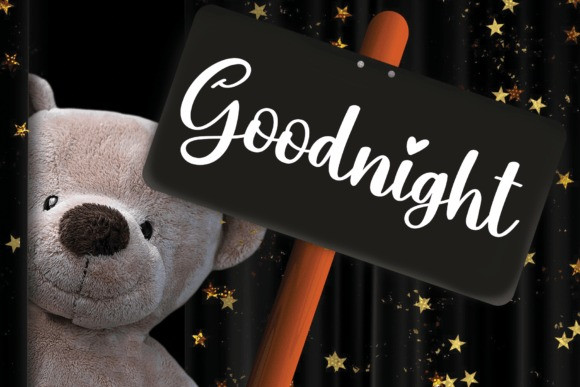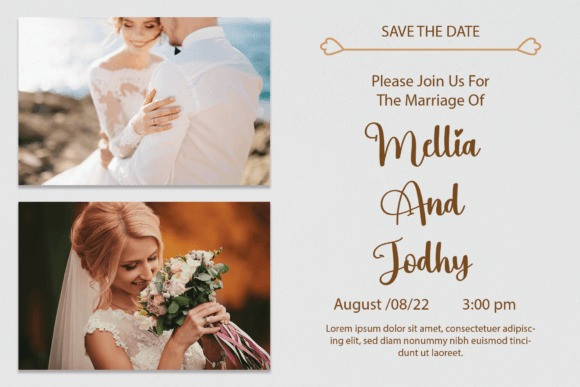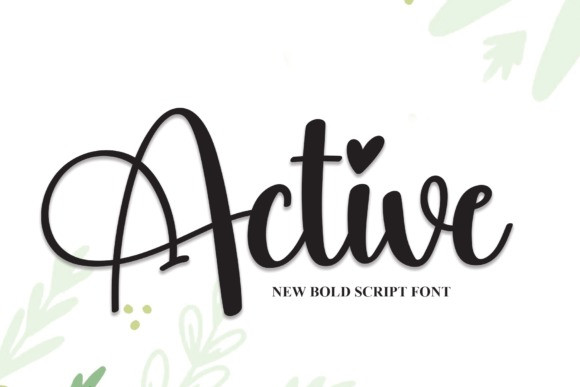
Active Script Font
Active Script Font, this font’s latest style letters are perfect for wall displays, wedding invitations, social media post logos, advertisements, product packaging, product designs, labels, photography, watermarks, invitations, stationery, and any project that requires a handwritten taste.